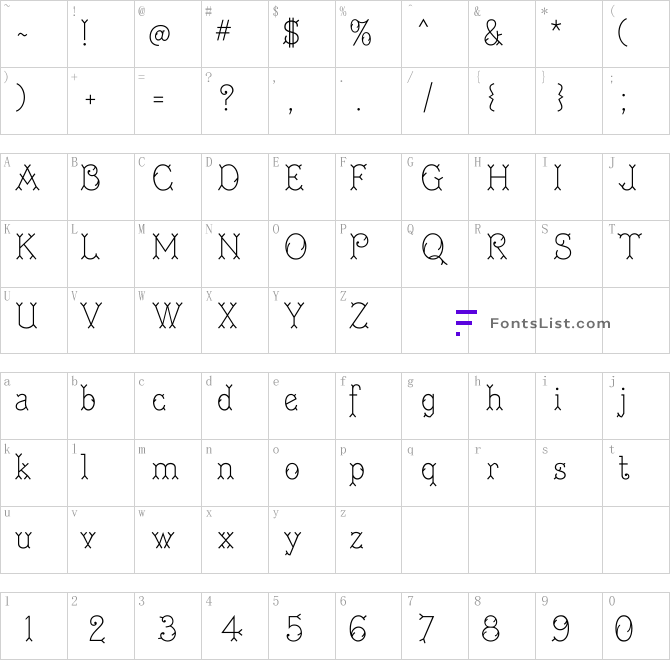
- Font Name:AstoriaAntiqueSG TT Light
AstoriaAntiqueSG-TT-Light.ttf is a very beautiful artistic font, AstoriaAntiqueSG-TT-Light.ttf is widely used in the design and printing of various books and pictures,AstoriaAntiqueSG-TT-Light.ttf has a strong visual impact,AstoriaAntiqueSG-TT-Light.ttf is a commonly used font in newspapers, magazines and books, and is used in posters, e-commerce Poster design, store design, logo design, font design and other fields.AstoriaAntiqueSG-TT-Light.